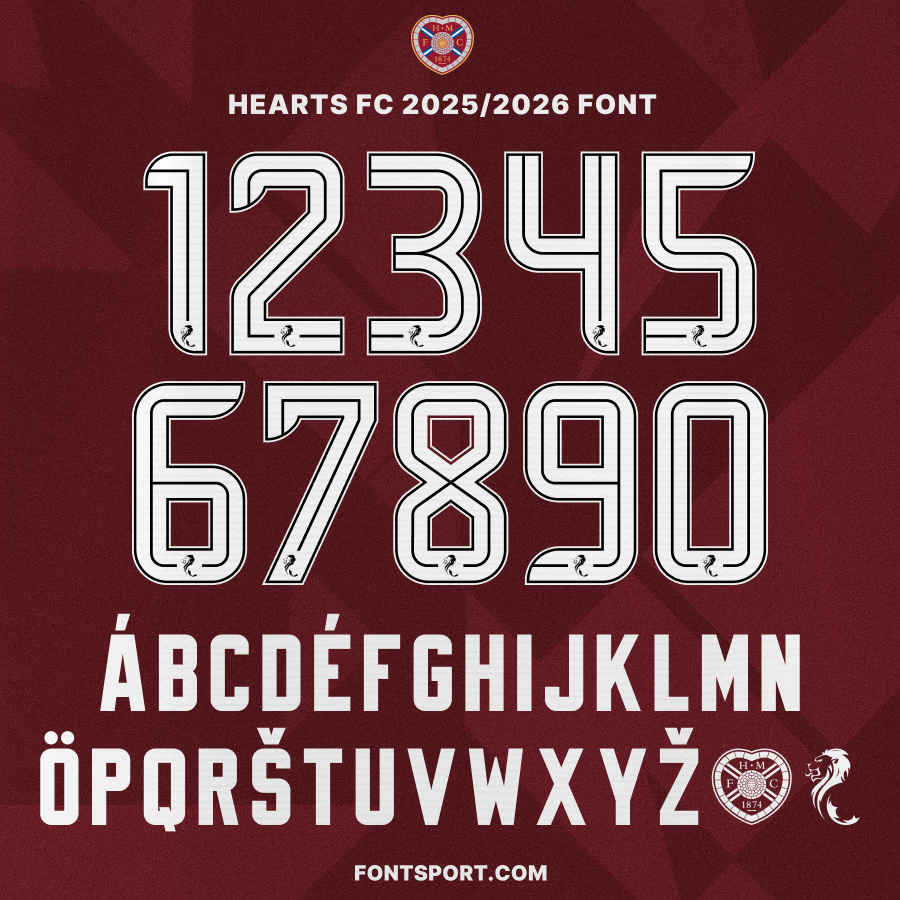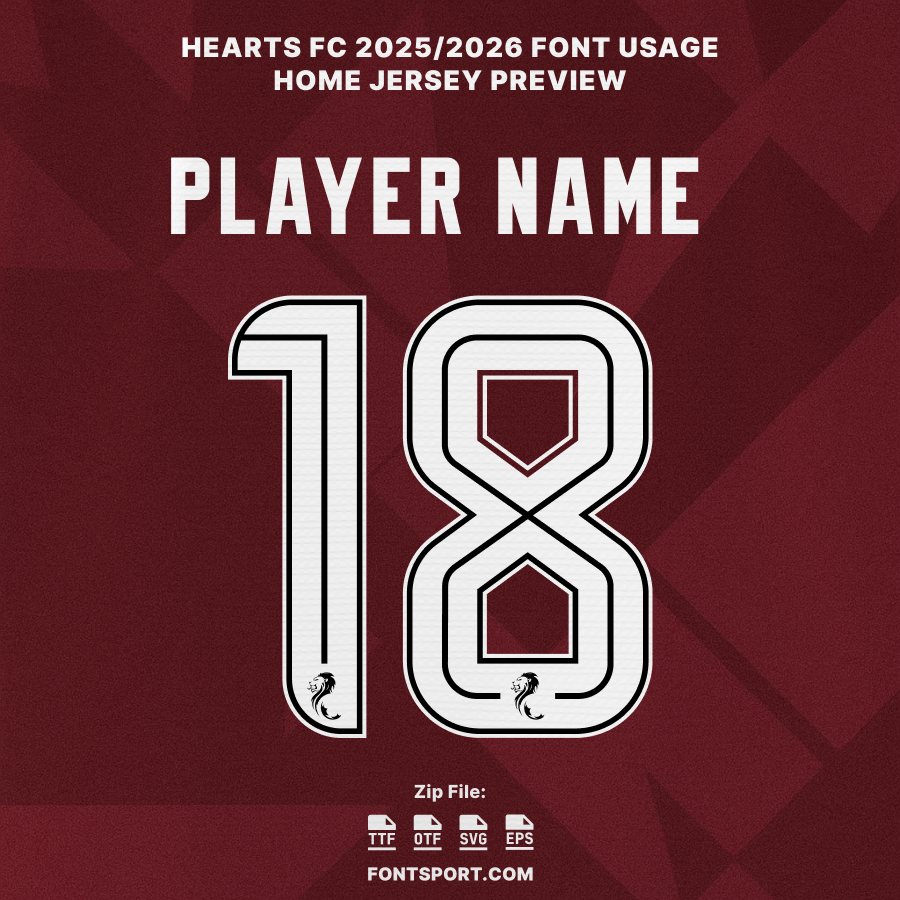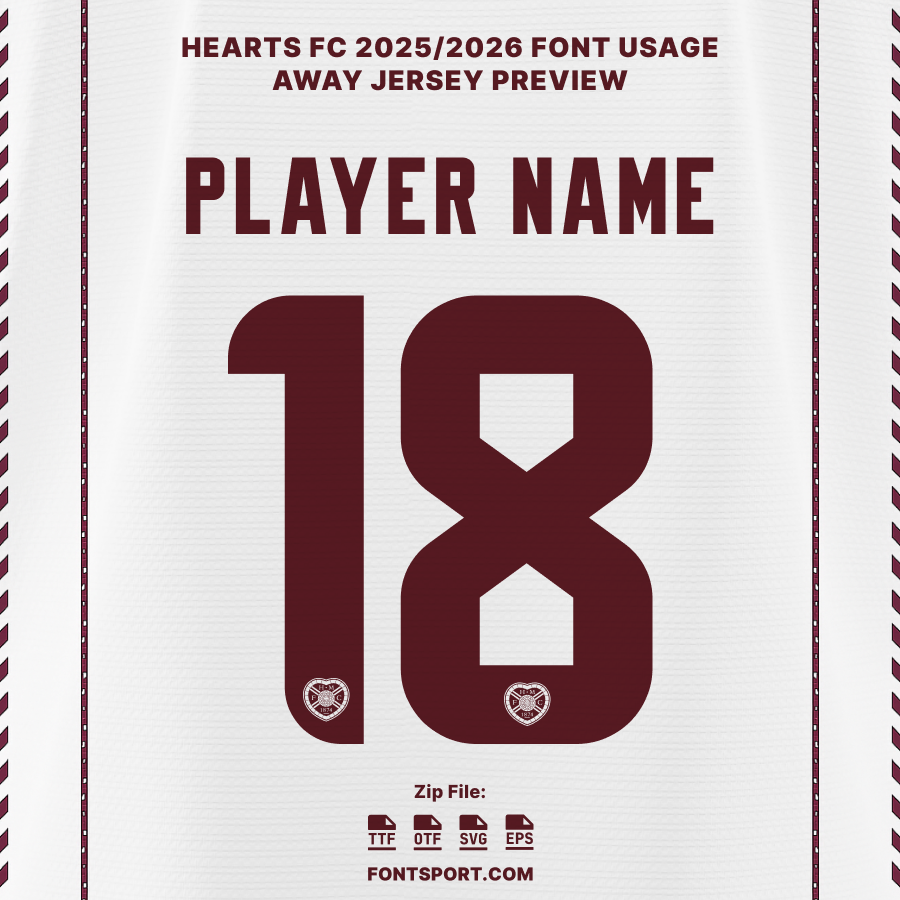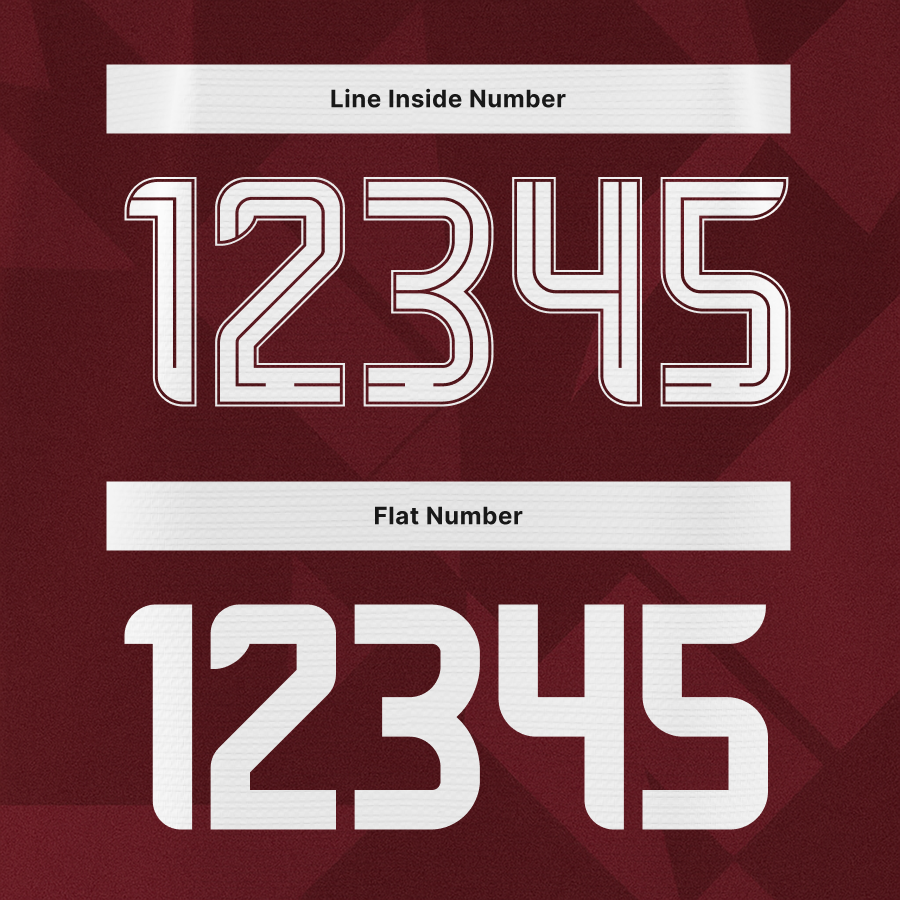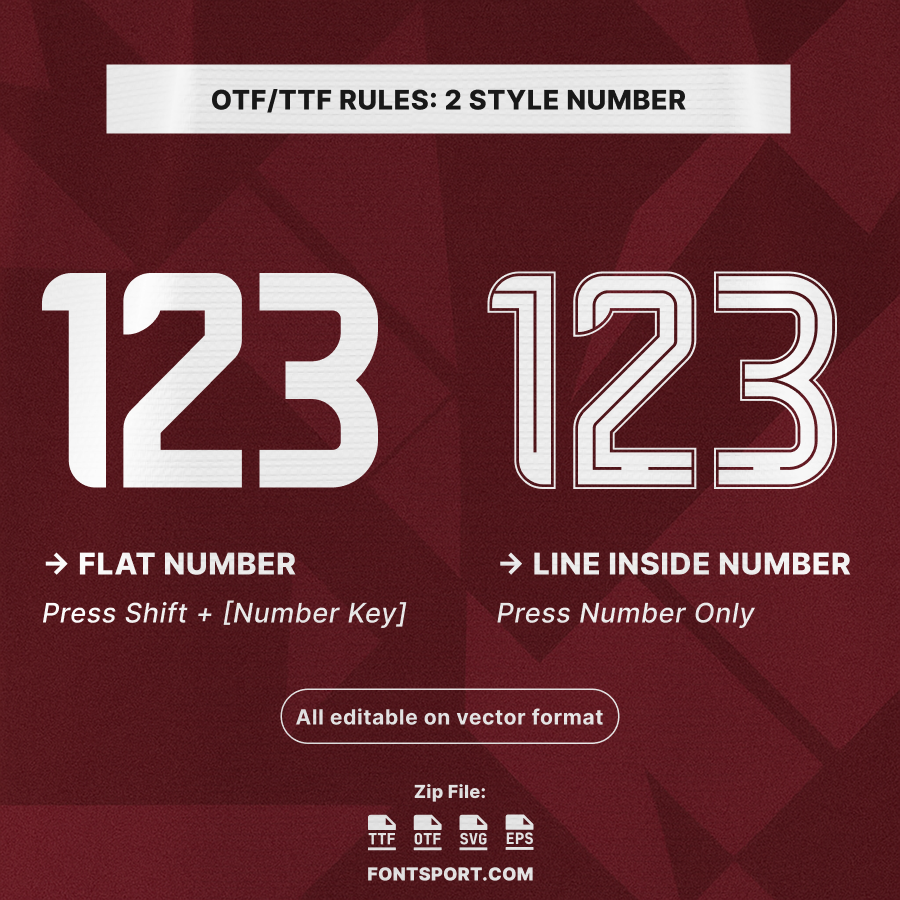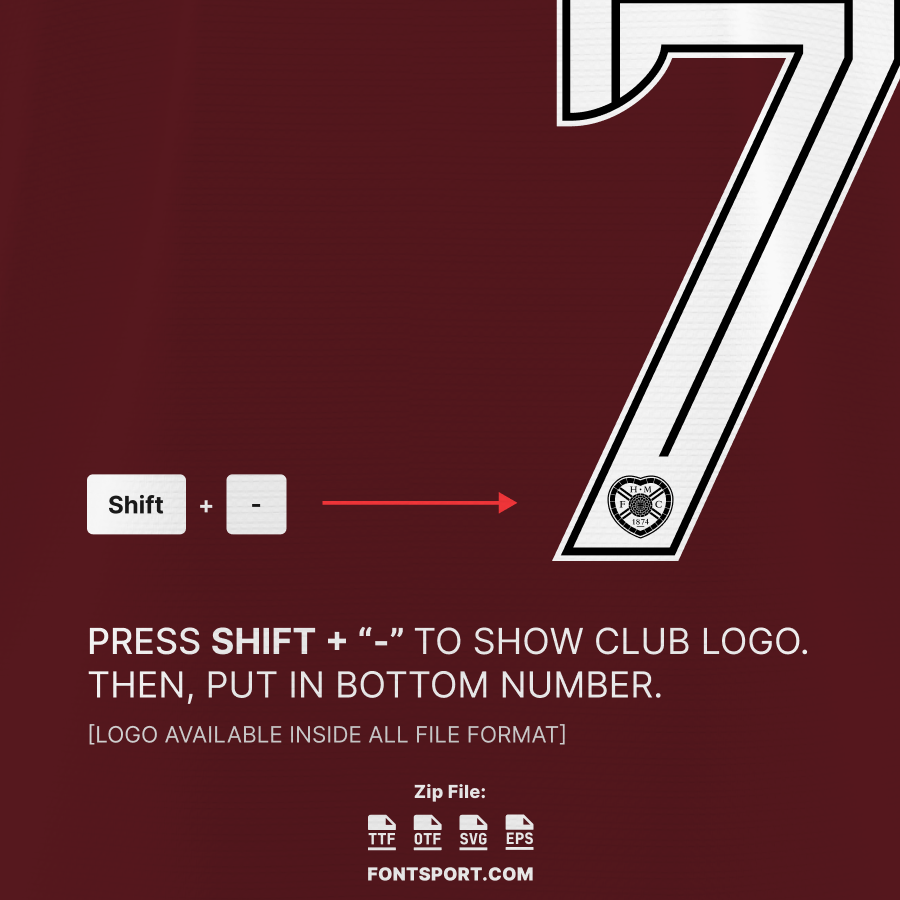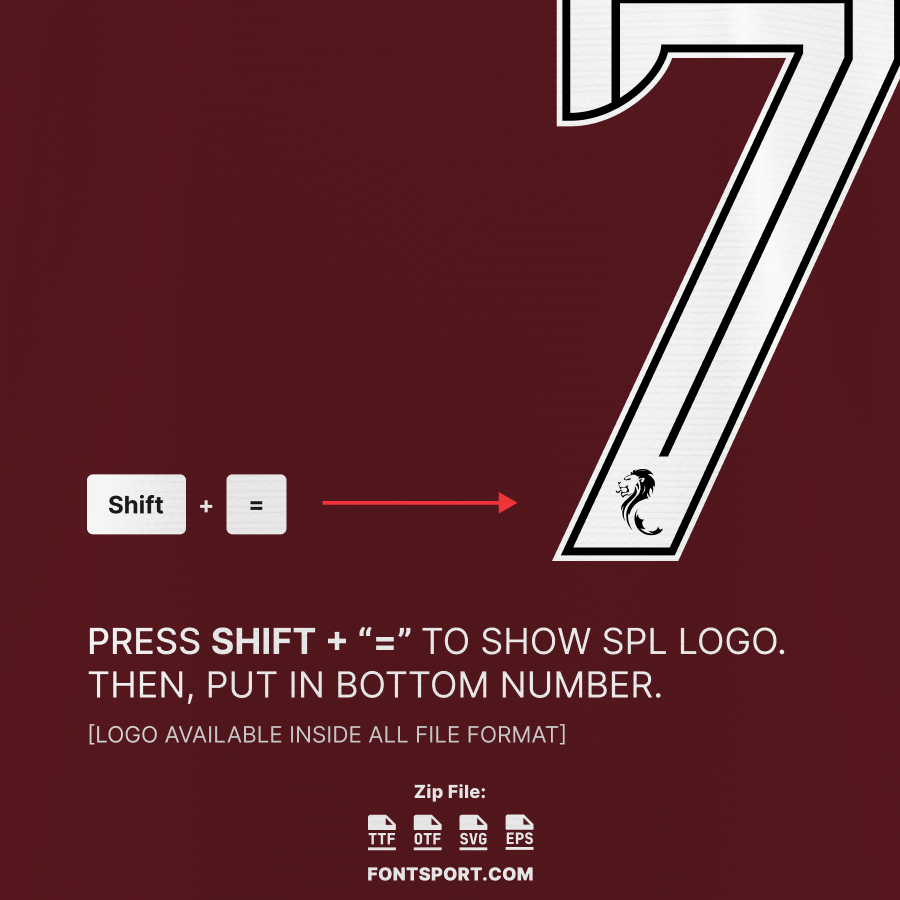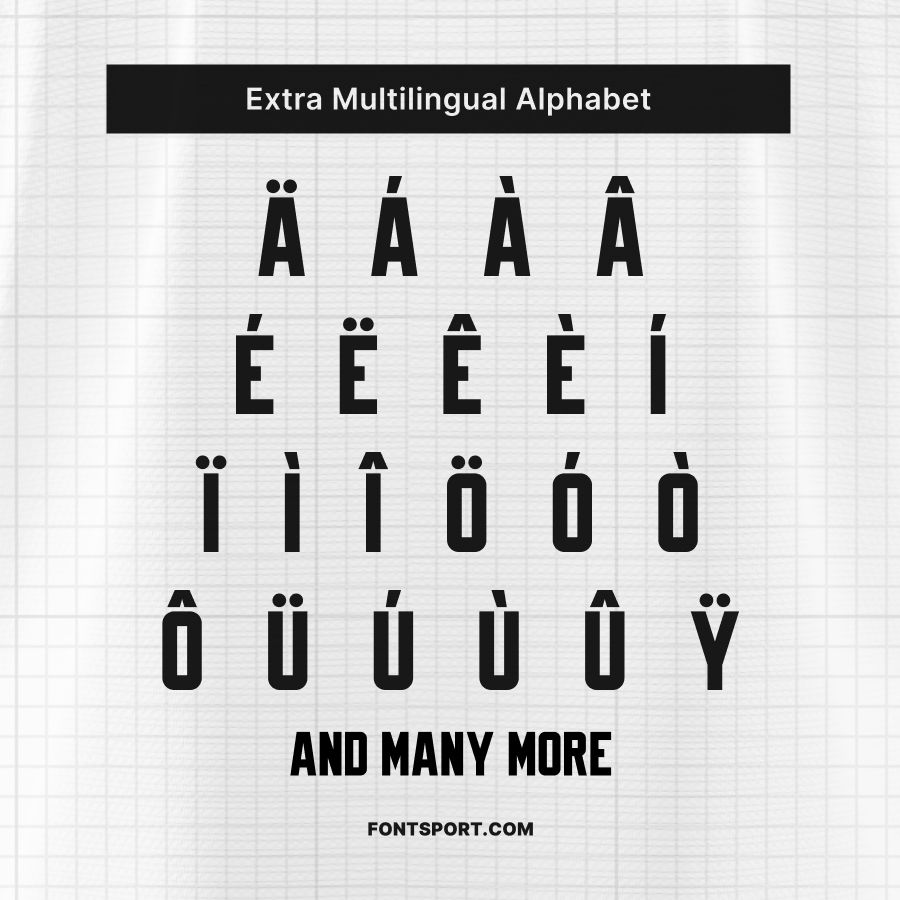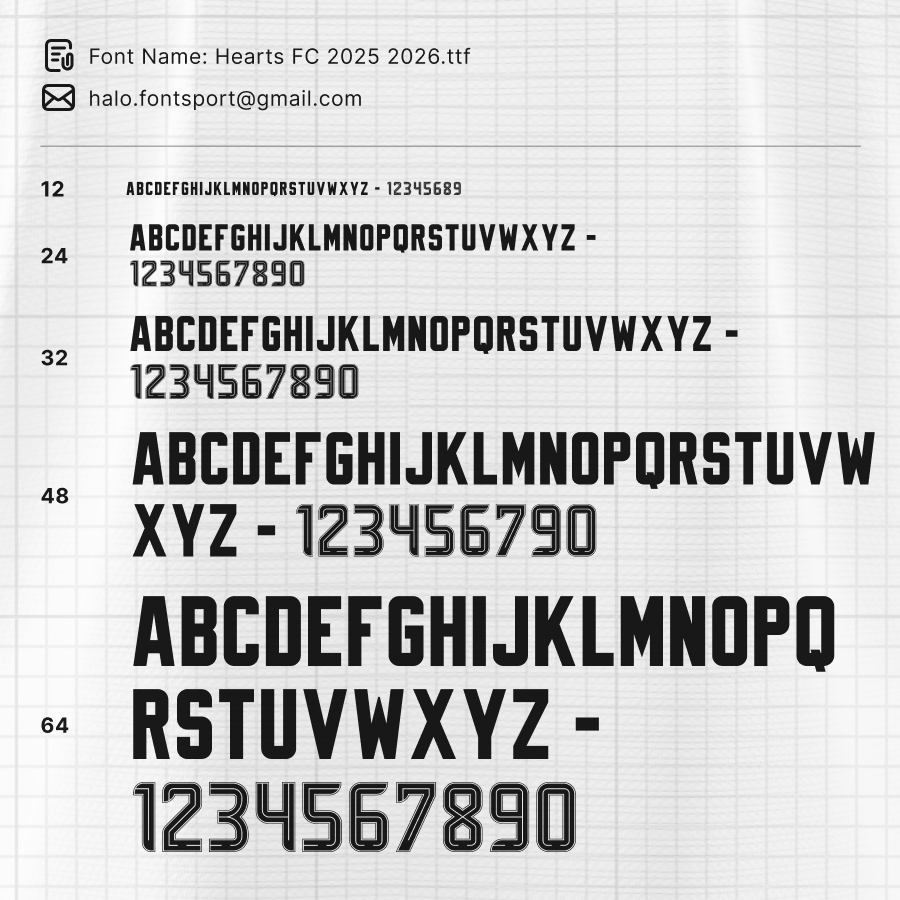
Hearts FC 2025/2026 Font Kit – Scottish Premiership Typeface
The Hearts FC 2025/2026 Font Kit represents the bold identity of Heart of Midlothian FC during the Scottish Premiership 2025/26 season. Designed with clarity and power in mind, this exclusive typeface brings a modern edge to the club’s traditional maroon heritage. The rounded corners, elegant letter spacing, and consistent weight reflect the club’s balance of passion and precision both on and off the pitch.
This font is ideal for jersey customization, matchday graphics, posters, and creative fan merchandise. Each character has been crafted to reflect the club’s iconic visual legacy, making it a perfect tool for authentic design recreation.
✅ Full A–Z letters & 0–9 numbers in authentic Hearts FC 2025/26 style
✅ Bonus crest logo glyph included for true-to-kit designs
✅ Multilingual Latin alphabet support with diacritics
⚽ Perfect for Scottish Premiership jersey mockups & sports branding
🎯 Authentic look for fan-made shirts, posters, and digital art
🛍️ Recreate Hearts FC’s 25/26 jersey typography with precision
🏆 Includes crest glyph for complete club identity integration
❤️ Hearts FC in the 2025/2026 Season
In the 2025/26 Scottish Premiership, Heart of Midlothian FC continues to assert its status as one of Scotland’s most historic clubs. With Tynecastle Park roaring behind them and stars like Lawrence Shankland and Cammy Devlin leading the charge, the club’s ambition shines through both performance and design.
This font kit captures the spirit of that season — modern, confident, and unmistakably Hearts. Whether you’re a designer, collector, or devoted fan, this font embodies the same energy that defines the club’s on-field excellence.